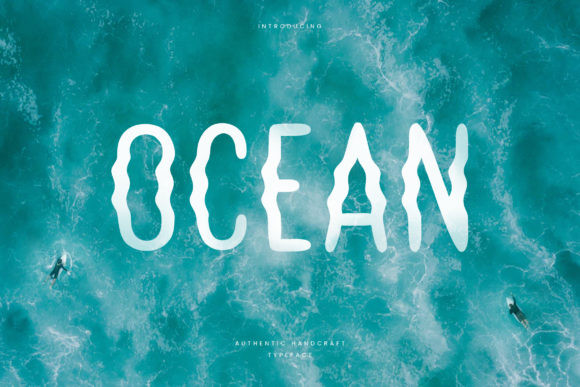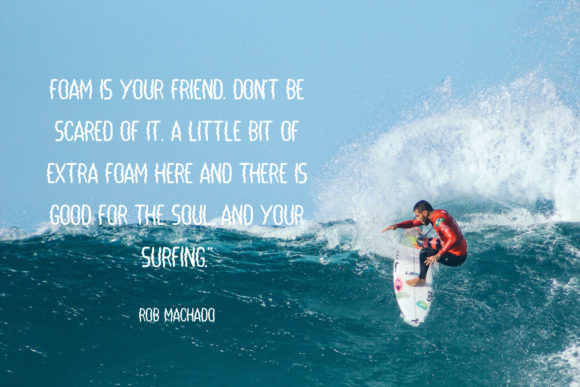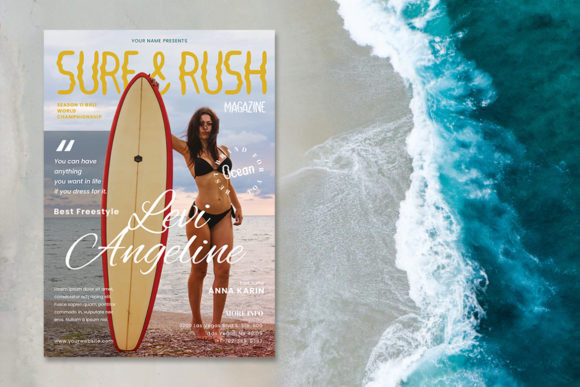
Ocean Font
Ocean is an incredibly unique display font. Whether you’re looking for fonts for Instagram or calligraphy scripts for DIY projects, this font will turn any creative idea into a true piece of art!